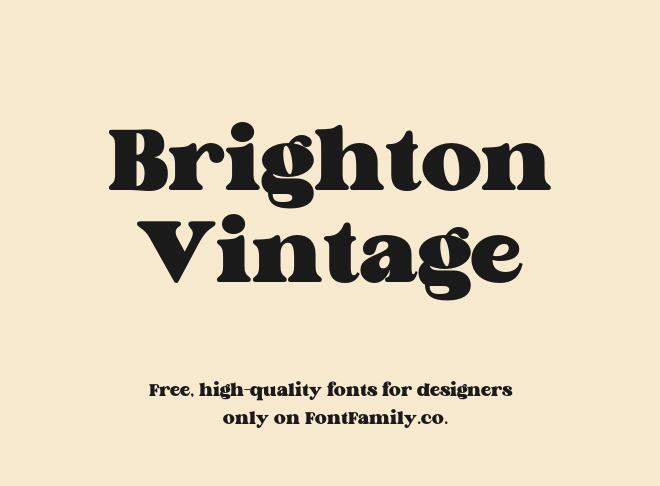
Brighton Vintage Font
Brighton Vintage Font, designed by Brighton Type Foundry, is a captivating blend of retro and vintage aesthetics. Its distinctive character set, reminiscent of the 1950s signage, makes it an ideal choice for branding, logos, and headline texts. Brighton Vintage stands out with its unique charm, setting it apart from other vintage fonts. The decorative elements and the attention to detail make it a perfect choice for those aiming to add a touch of nostalgia to their projects. Despite its vintage look, Brighton Vintage Font is versatile enough to be used in a variety of design contexts, from print to digital. Its expressive nature makes it a great tool for designers aiming to create impactful and memorable designs.